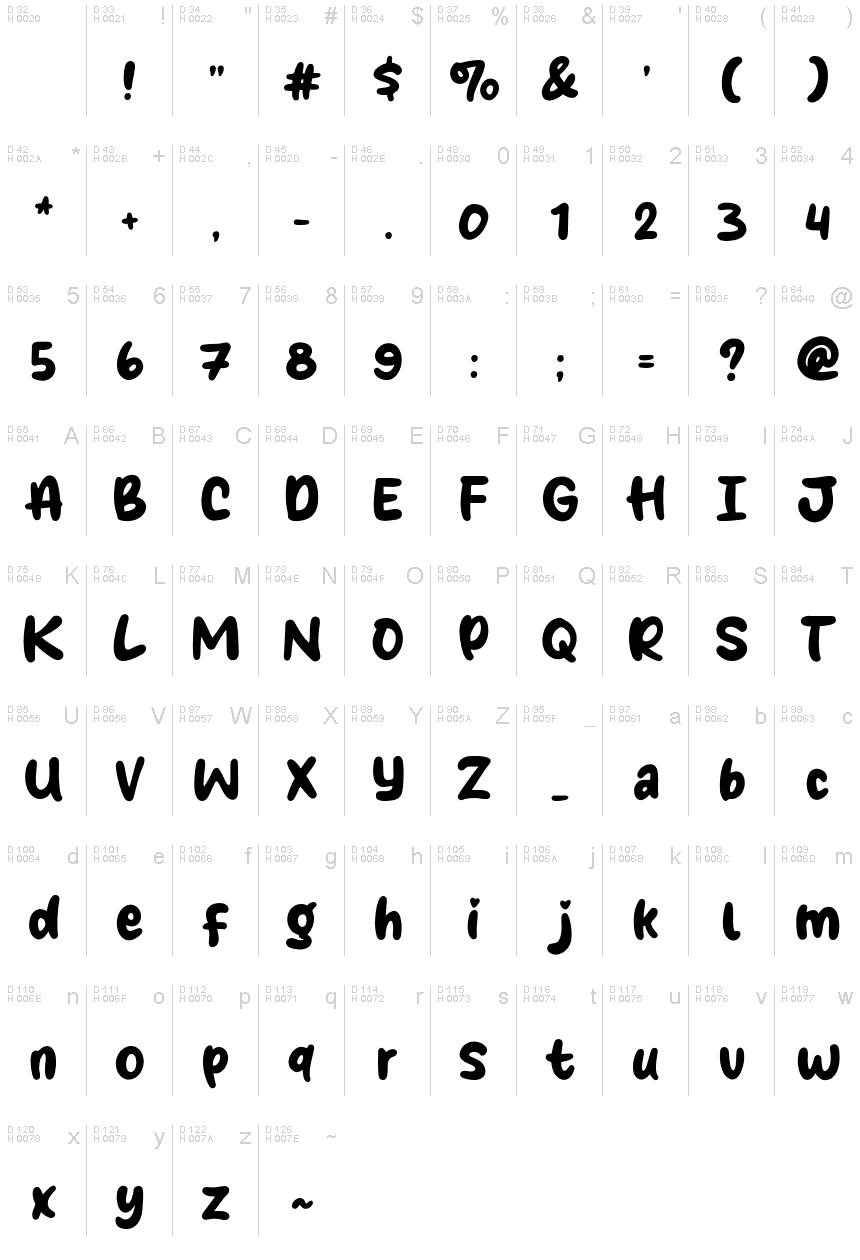
Pinky Style
Pinky Style, crafted by the talented Khurasan, is a captivating display font that exudes a playful charm. This bold typeface brings cartoonish vibes to life, making it perfect for a range of creative projects. Its whimsical nature effortlessly elevates children's book covers, animated logos, and comic strips. Delightful and eye-catching, Pinky Style will infuse your designs with an irresistible dose of cheerfulness. Let this font be the go-to choice for anything from birthday party invitations to educational materials or even quirky branding ventures. Unleash your imagination and let Pinky Style add a touch of animated magic!